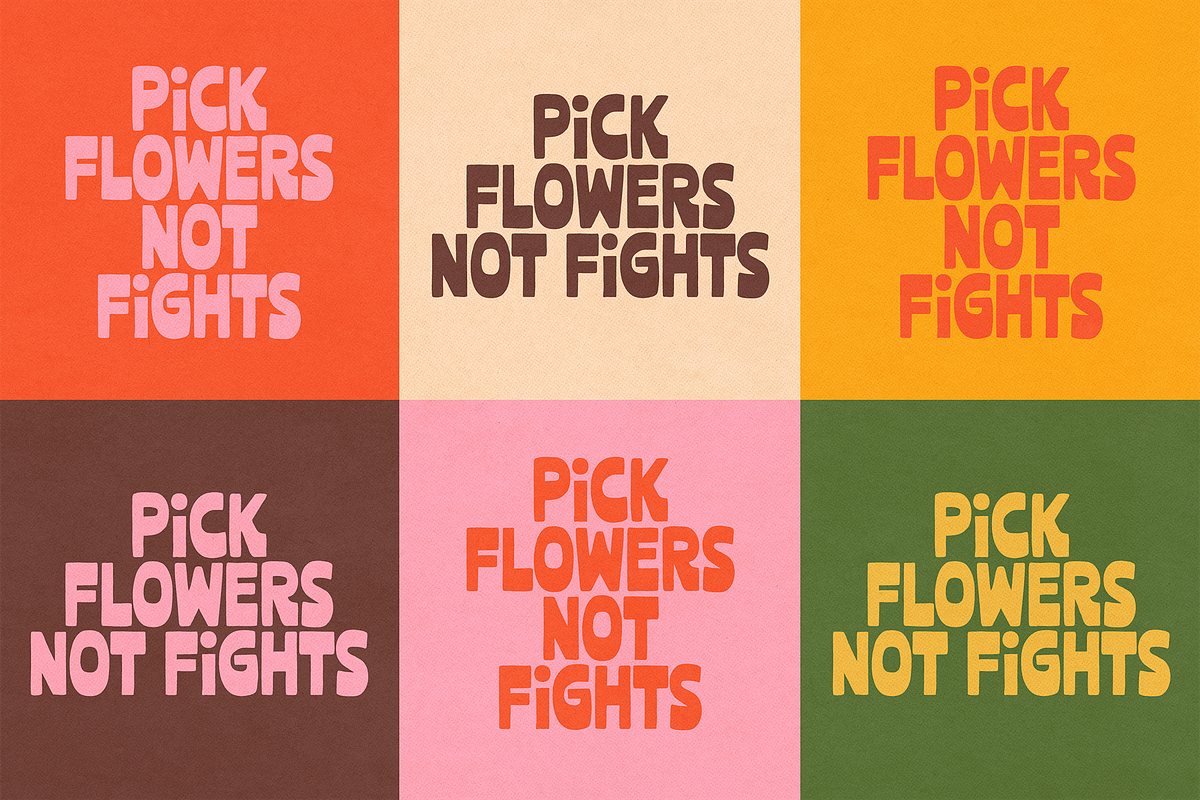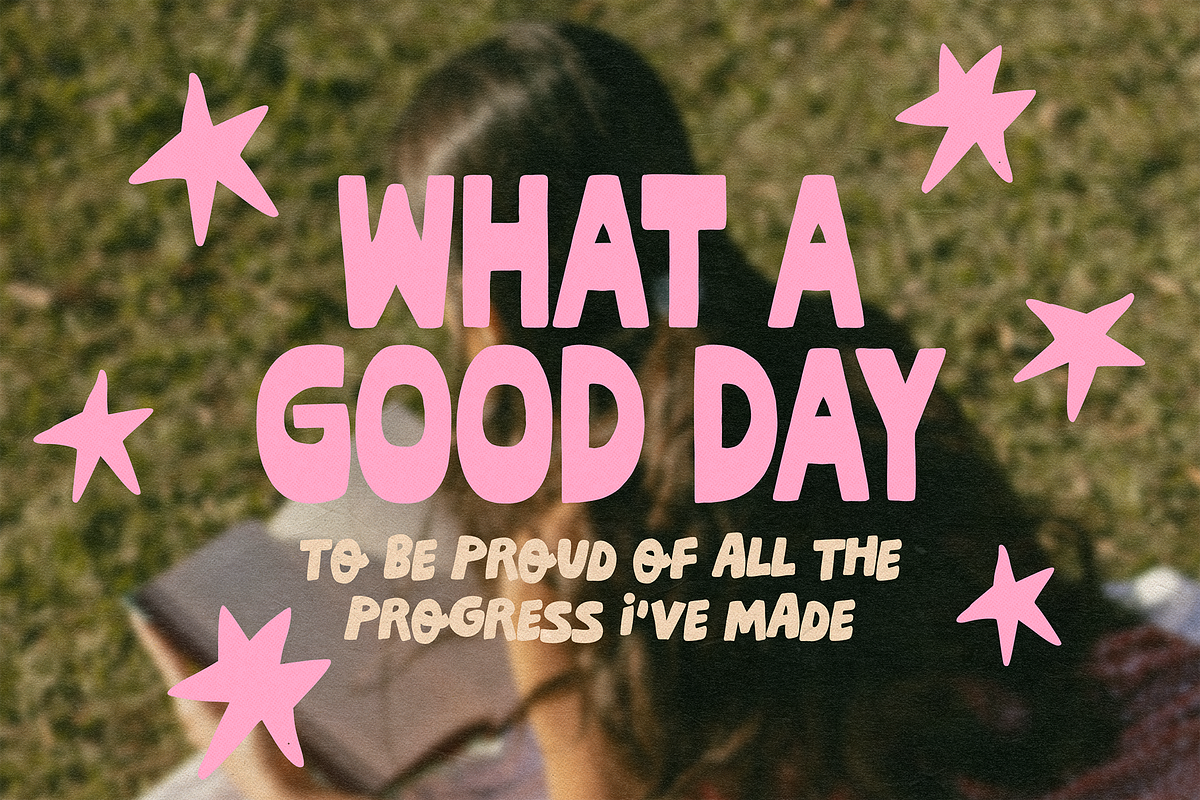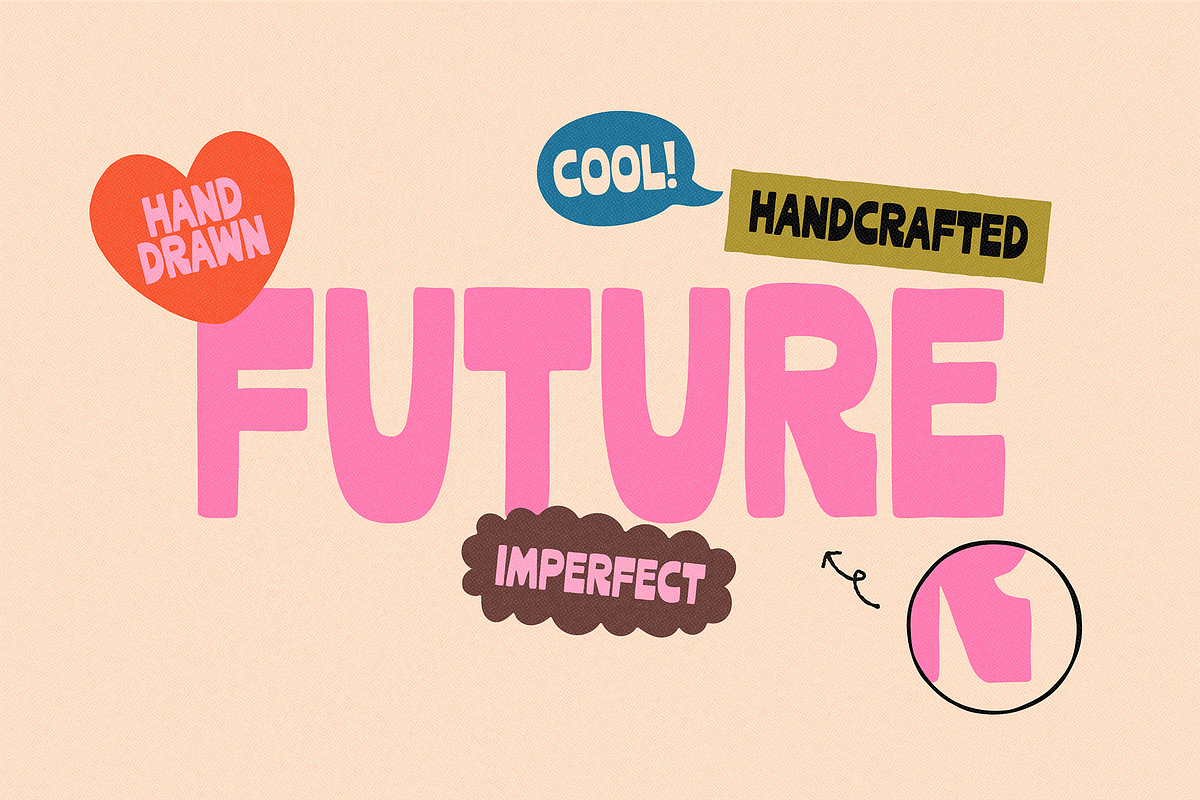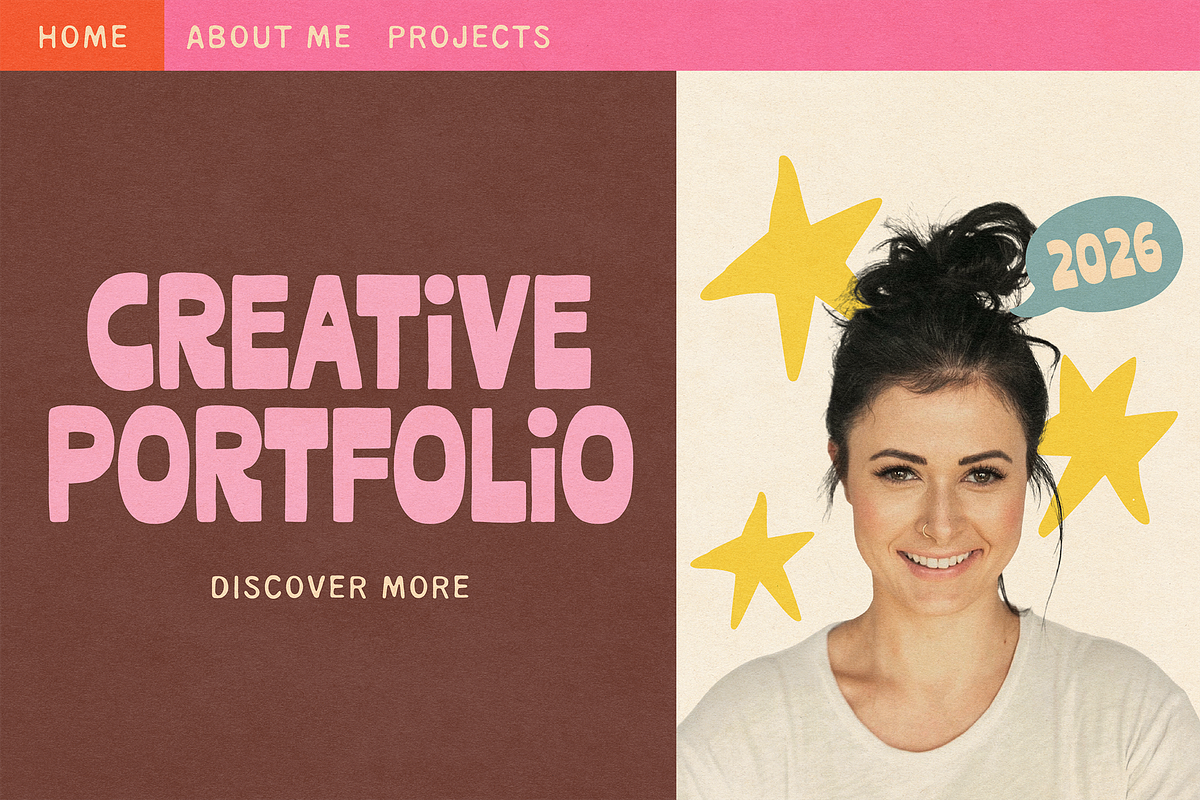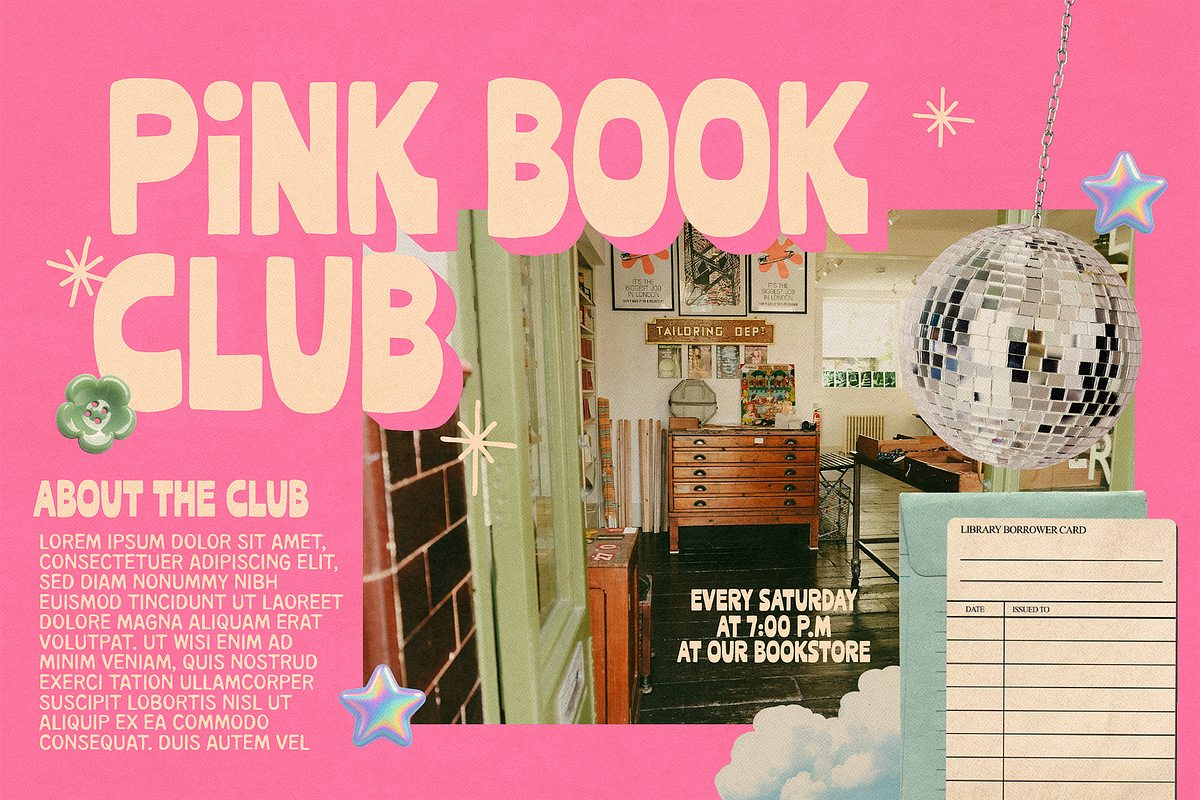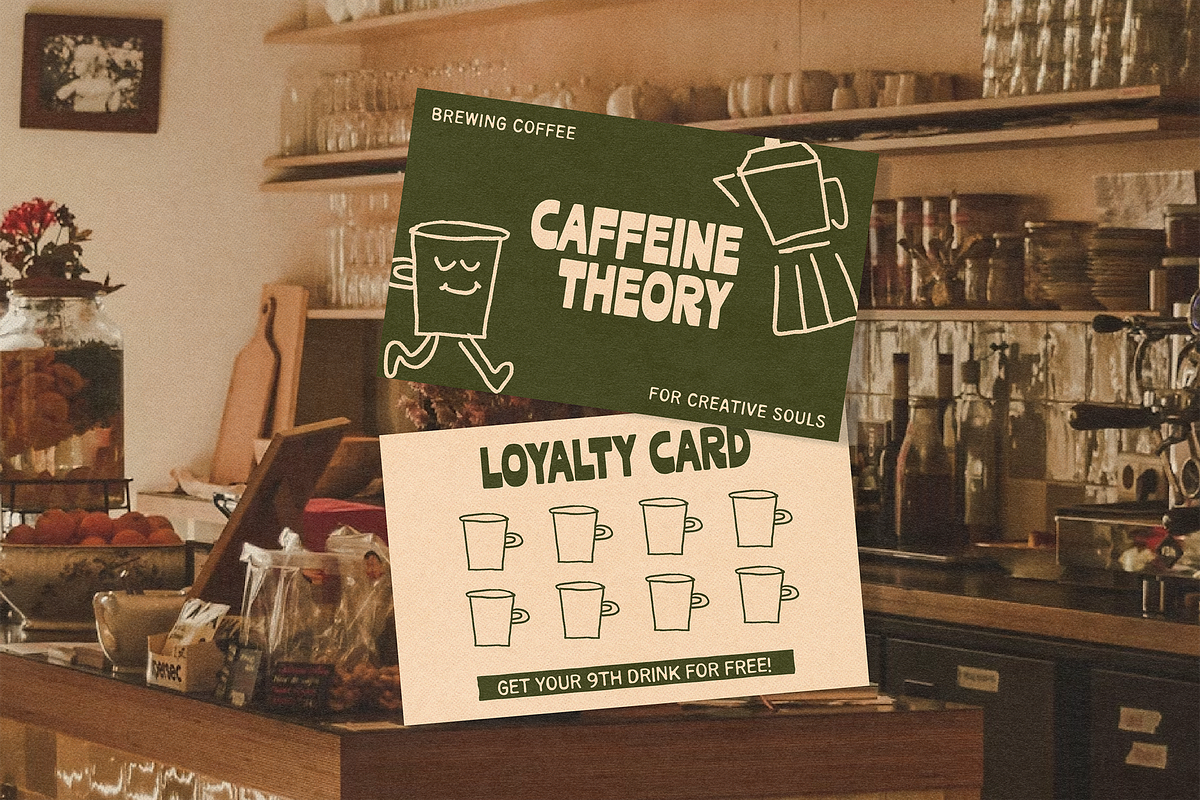
DEAR FUTURE | COOL SANS
DEAR FUTURE is a bold handmade display font with some imperfections, designed to stand out. Its chunky yet tall structure, strong contrast, and playful imperfections make it perfect for branding, logos, posters, packaging, apparel, social media graphics, and retro inspired designs.
Inspired by chunky and sans typography, this font features unique letter details (R, & K) that add personality and originality. DEAR FUTURE works beautifully for headlines, titles, quotes, and statement typography, giving every project a cool, modern, and expressive look.
Note: This font is based on my “GLIMMER HOOD” font, with a fun and playful twist.